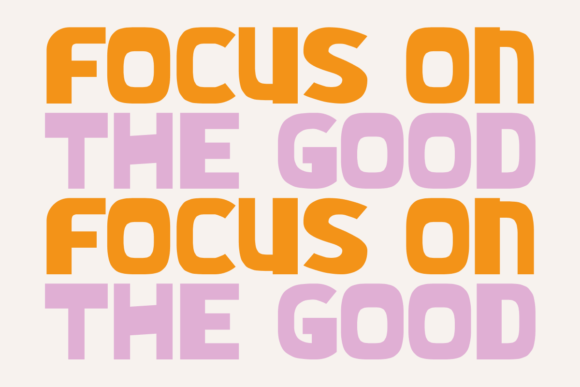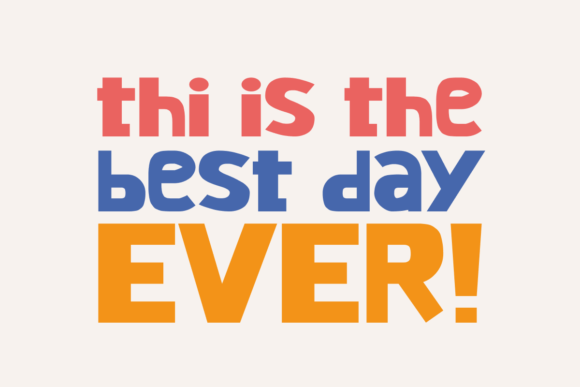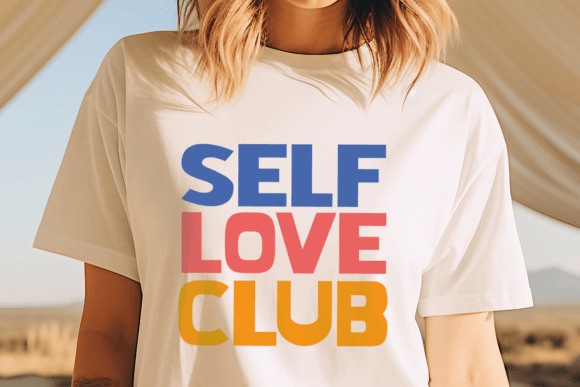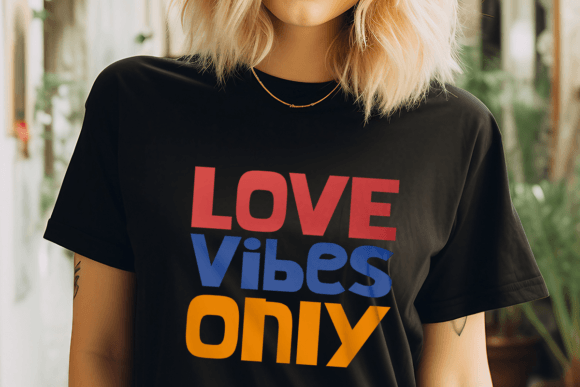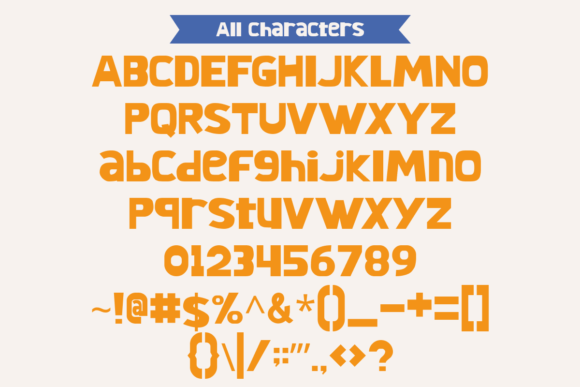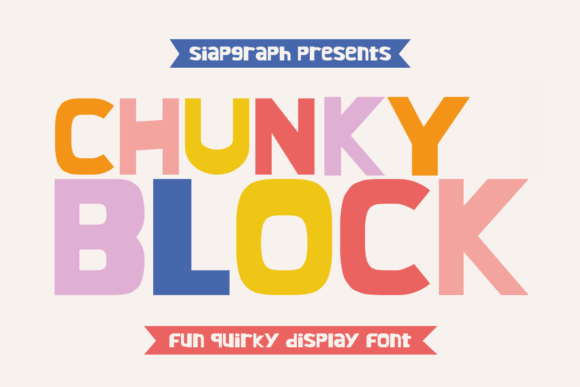
Introducing Chunky Block Font: The Ultimate Modern Display Font for Creative Projects
Are you tired of using the same old fonts for your design projects? Look no further! Chunky Block Font is here to revolutionize your creative endeavors with its modern, bold, retro, and quirky style. This display font is perfect for designers and crafters who want to add a touch of personality to their work.
What is Chunky Block Font?
Chunky Block Font is a modern display font that boasts a bold and quirky style, reminiscent of retro typography. Its chunky and blocky design makes it perfect for headlines, logotypes, and other creative projects that require a statement piece. This font is versatile and can be used in various design projects, from packaging and stickers to apparel and websites.
Key Features of Chunky Block Font
- Modern and Bold Design: Chunky Block Font features a modern and bold design that is sure to grab attention.
- Retro and Quirky Style: The font’s retro and quirky style adds a touch of personality to any design project.
- High-Quality Vector File: The font is a high-quality vector file, ensuring crisp and clear rendering at any size.
Use Cases for Chunky Block Font
Chunky Block Font is perfect for a wide range of design projects, including:
- Logotype and Branding: Create a bold and memorable logo for your brand with Chunky Block Font.
- Stickers and Packaging Design: Add a touch of personality to your stickers and packaging designs with this quirky font.
- Cricut Projects: Use Chunky Block Font for your Cricut projects, such as custom vinyl signs and iron-on designs.
- Apparel and T-Shirts: Create eye-catching apparel and t-shirts with Chunky Block Font.
- Posters and Magazines: Use this font for posters, magazines, and other print materials to add a bold and modern touch.
- Websites and Social Media: Add Chunky Block Font to your website or social media graphics to create a consistent brand identity.
- YouTube and Instagram: Use this font for your YouTube and Instagram graphics, such as video titles and captions.
Benefits of Using Chunky Block Font
By using Chunky Block Font, you can:
- Stand Out from the Crowd: With its bold and quirky design, Chunky Block Font can help your design projects stand out from the crowd.
- Save Time: The font’s high-quality vector file and easy-to-use design save you time and effort in creating professional-looking designs.
- Enhance Your Brand Identity: Chunky Block Font can help you create a consistent brand identity across various design projects.
Tips for Using Chunky Block Font
Here are some tips for using Chunky Block Font effectively:
- Use it for Headlines: Chunky Block Font is perfect for headlines and titles, where you want to grab attention.
- Experiment with Colors: Try out different colors and color combinations to add depth and interest to your designs.
- Pair it with Other Fonts: Experiment with pairing Chunky Block Font with other fonts to create a unique and interesting design.